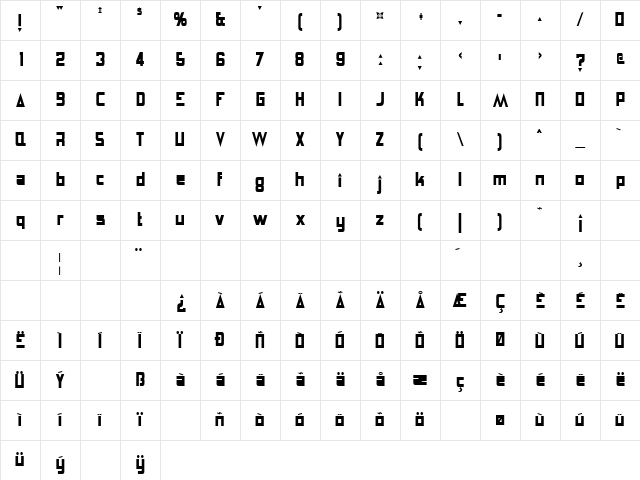
Anglepoise Lampshade Regular
Foundry: Larabie Fonts
Design Context for Anglepoise Lampshade
Anglepoise Lampshade is a composed and adaptable typeface that performs quietly and consistently across a wide range of design contexts.
Pro Tip: Use Anglepoise Lampshade in both headline and body roles to test its range before committing to a single application.
Who designed the Anglepoise Lampshade Regular font?
This font was published by Larabie Fonts. Check the technical specs section for copyright and designer details.